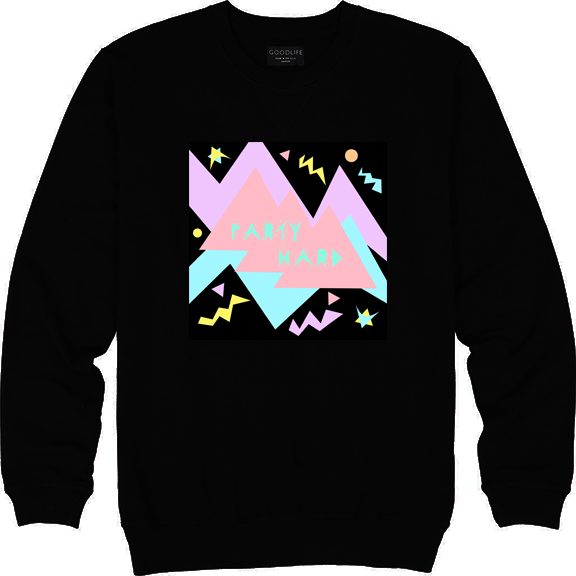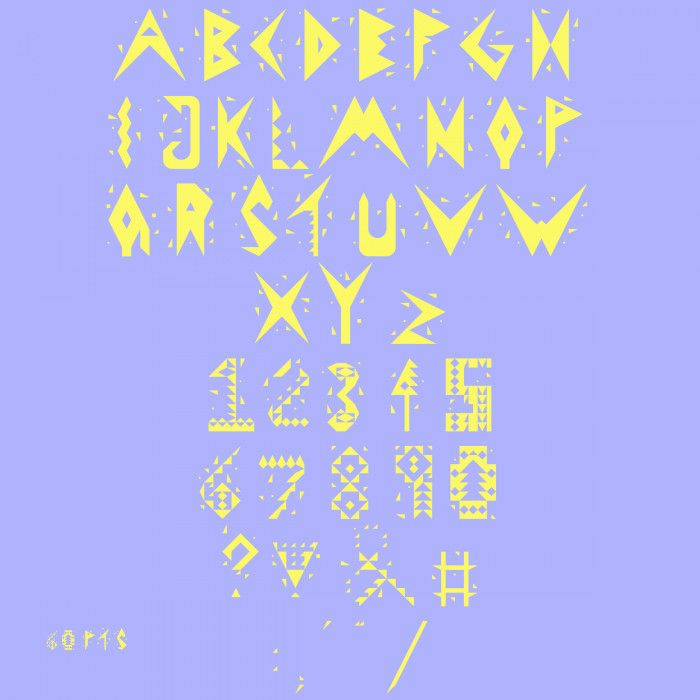
90s style font with confetti pieces around the letterforms.
Sweatshirt font example
Delightful font. The T seems out of place however. Perhaps because its jaggies are closer together than the jaggies in the rest of the font.